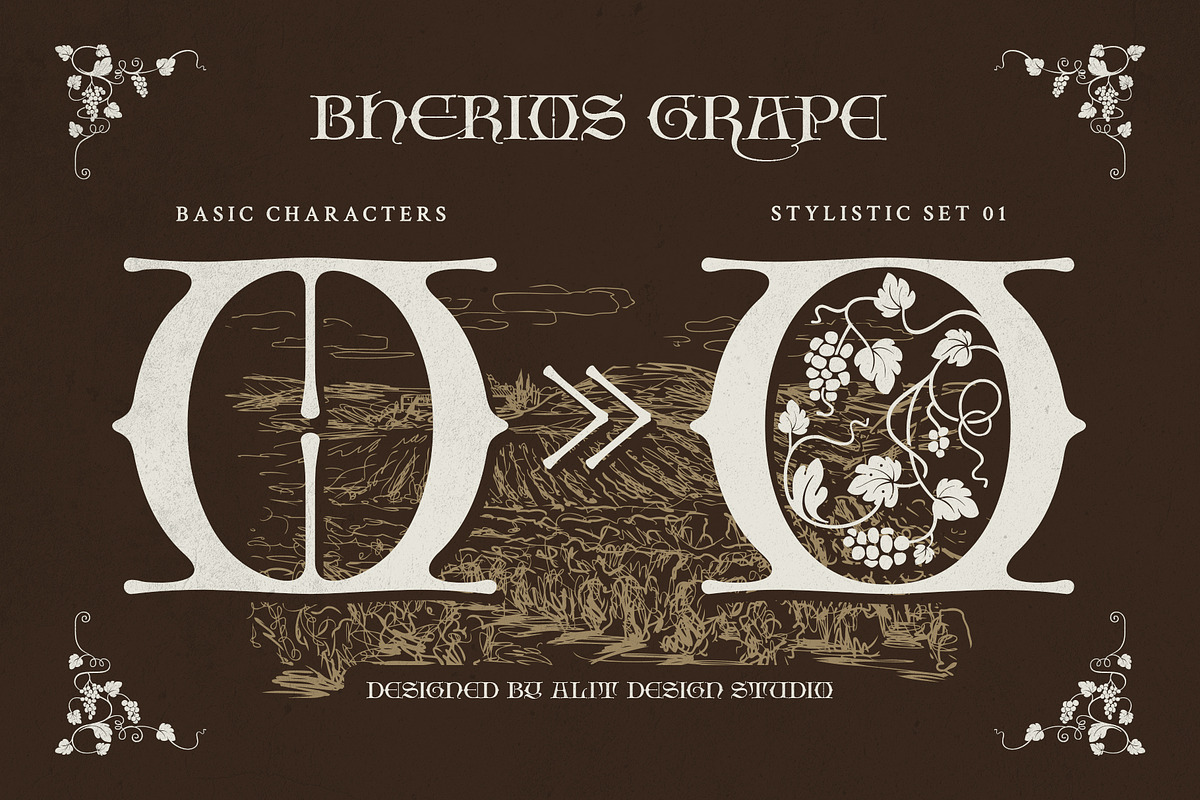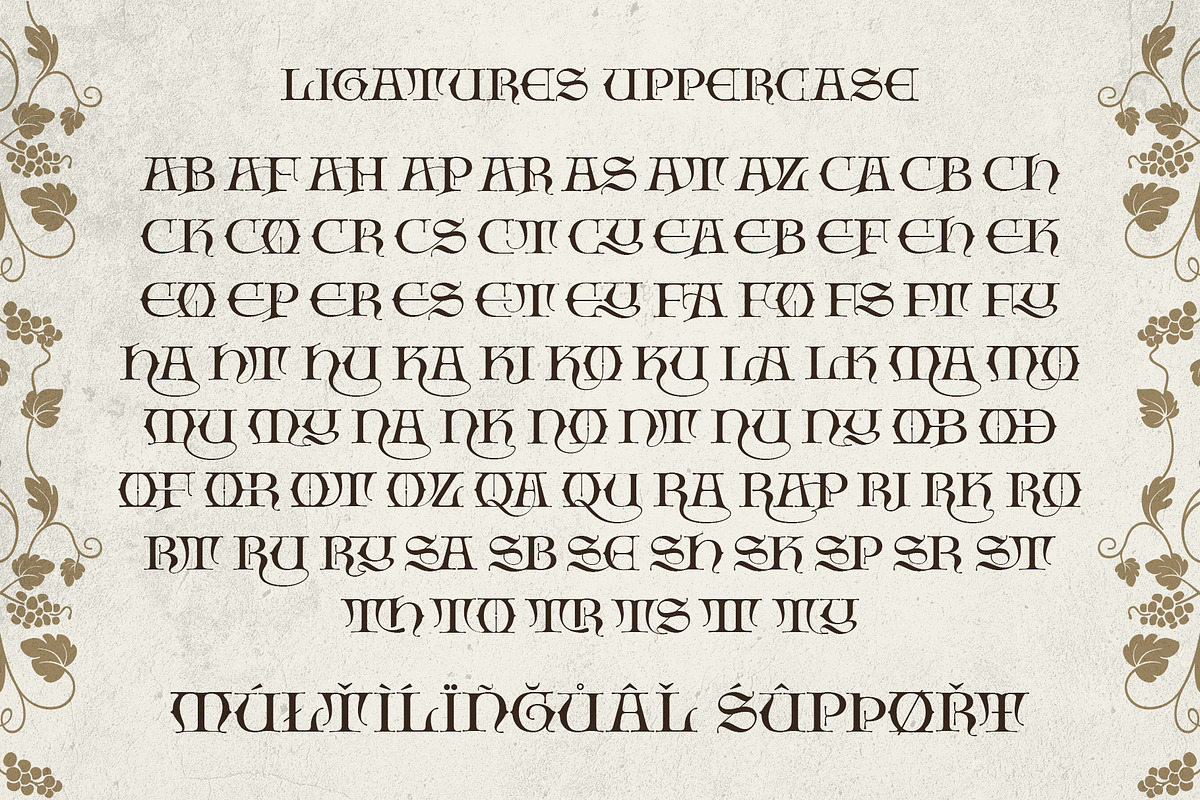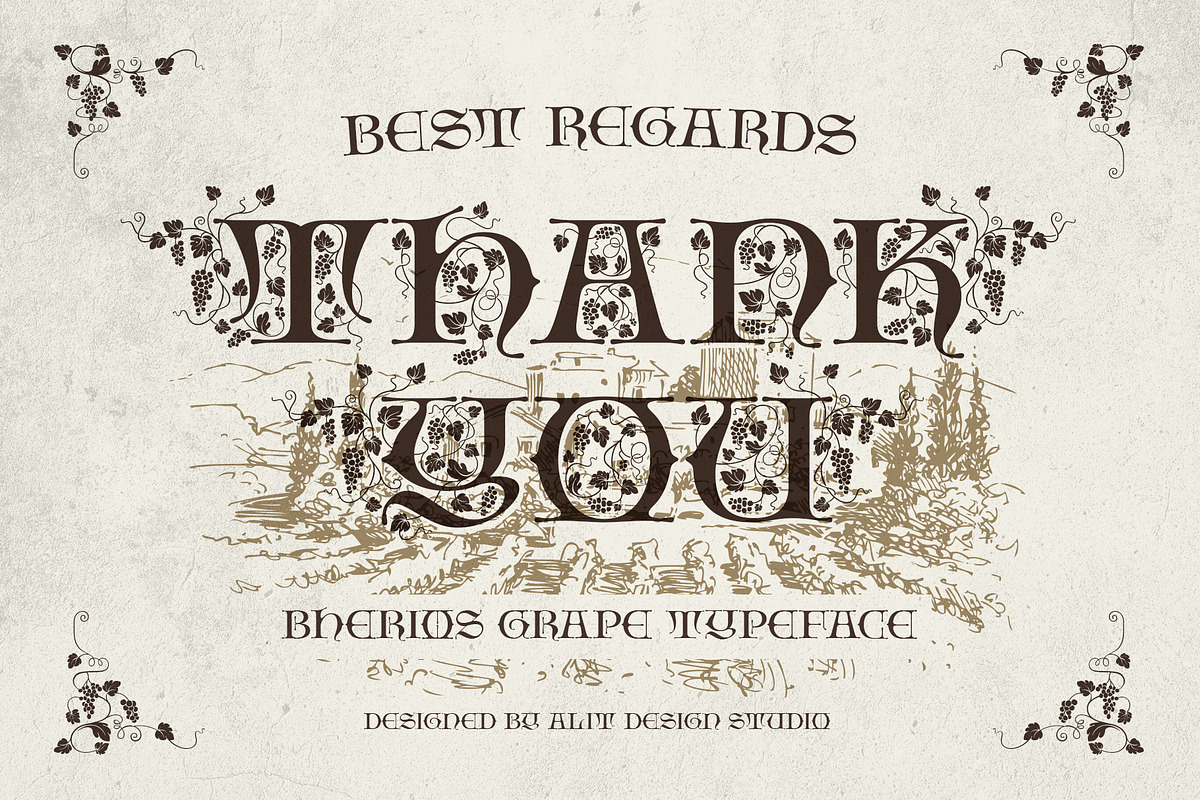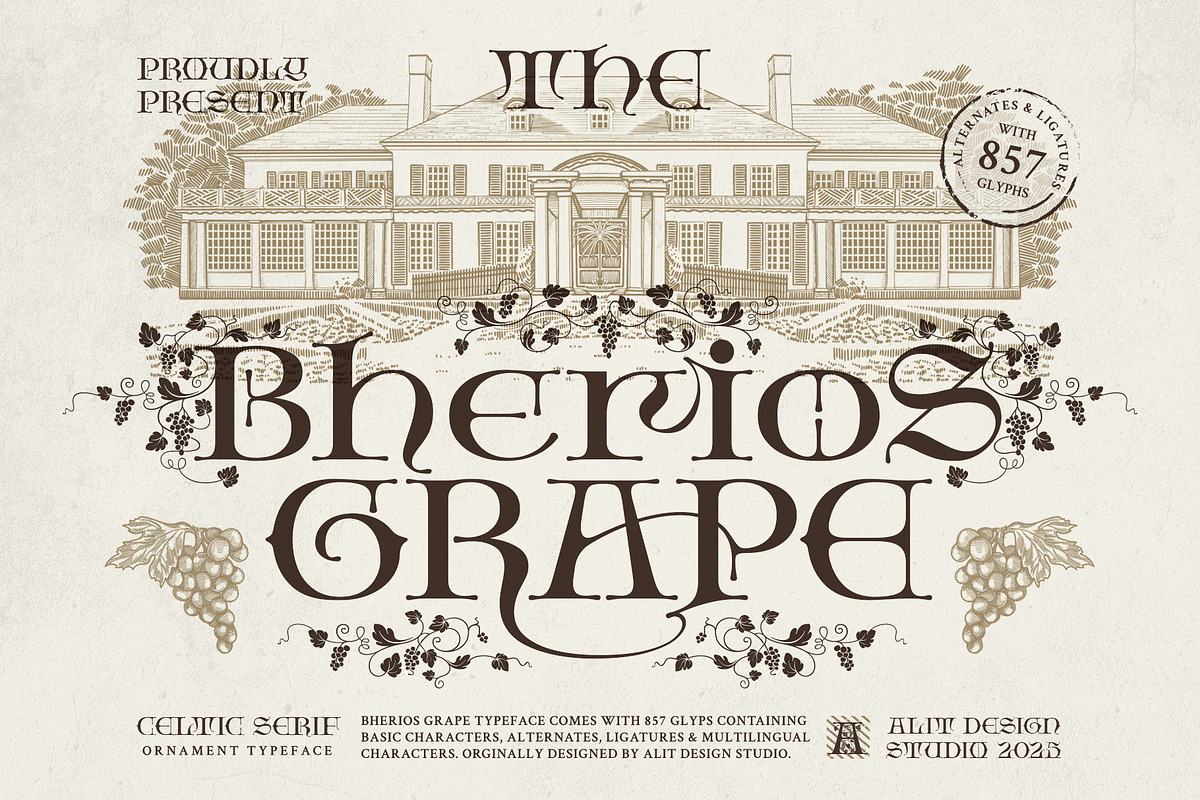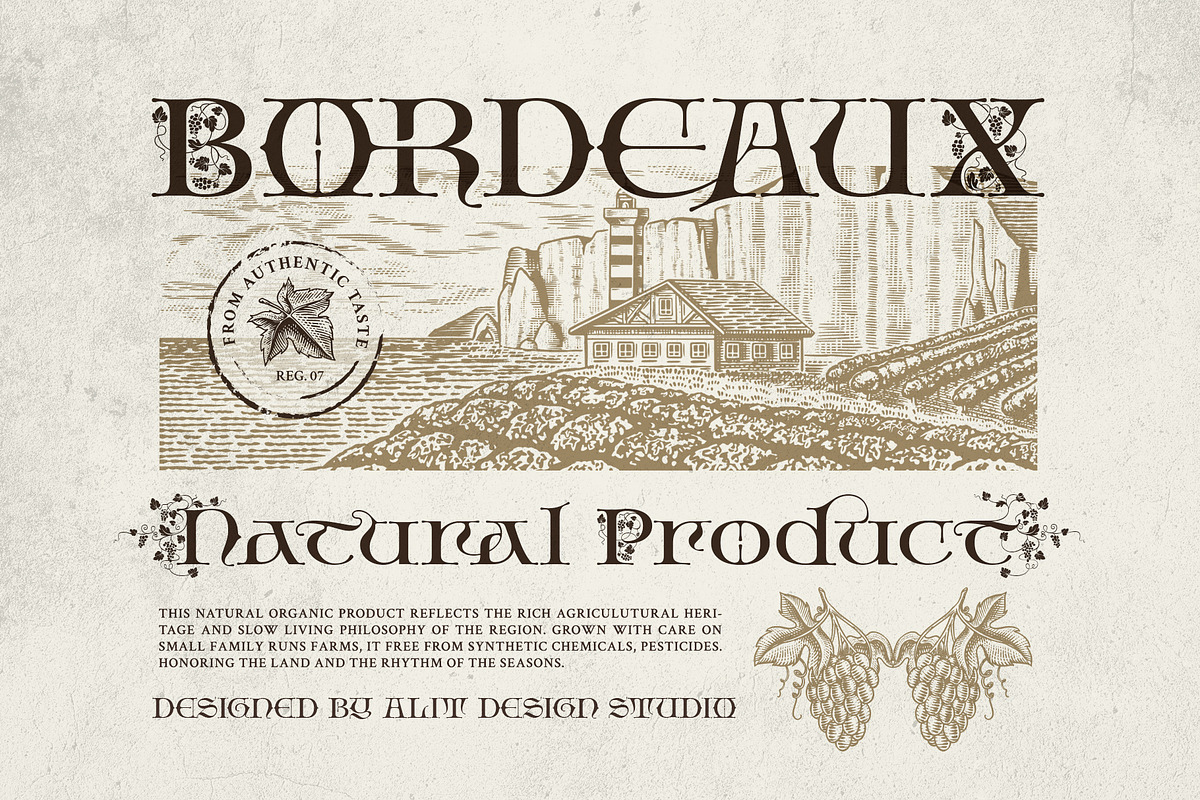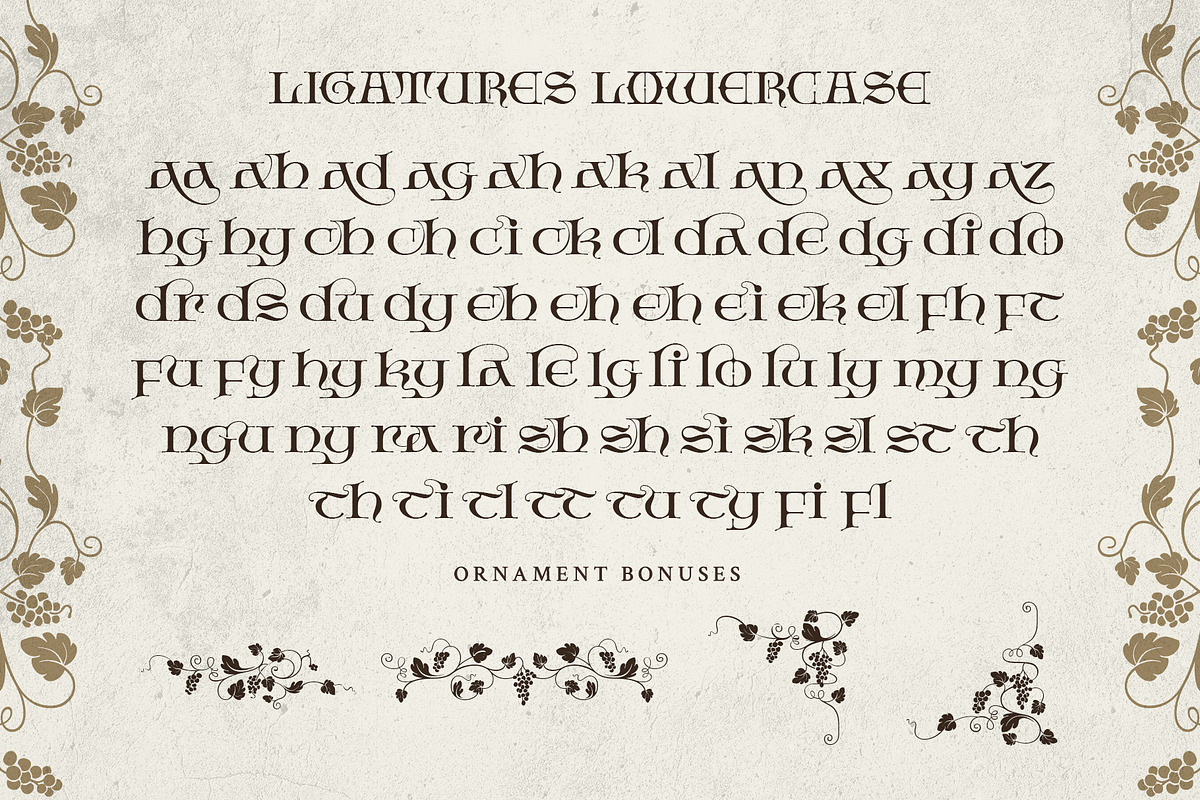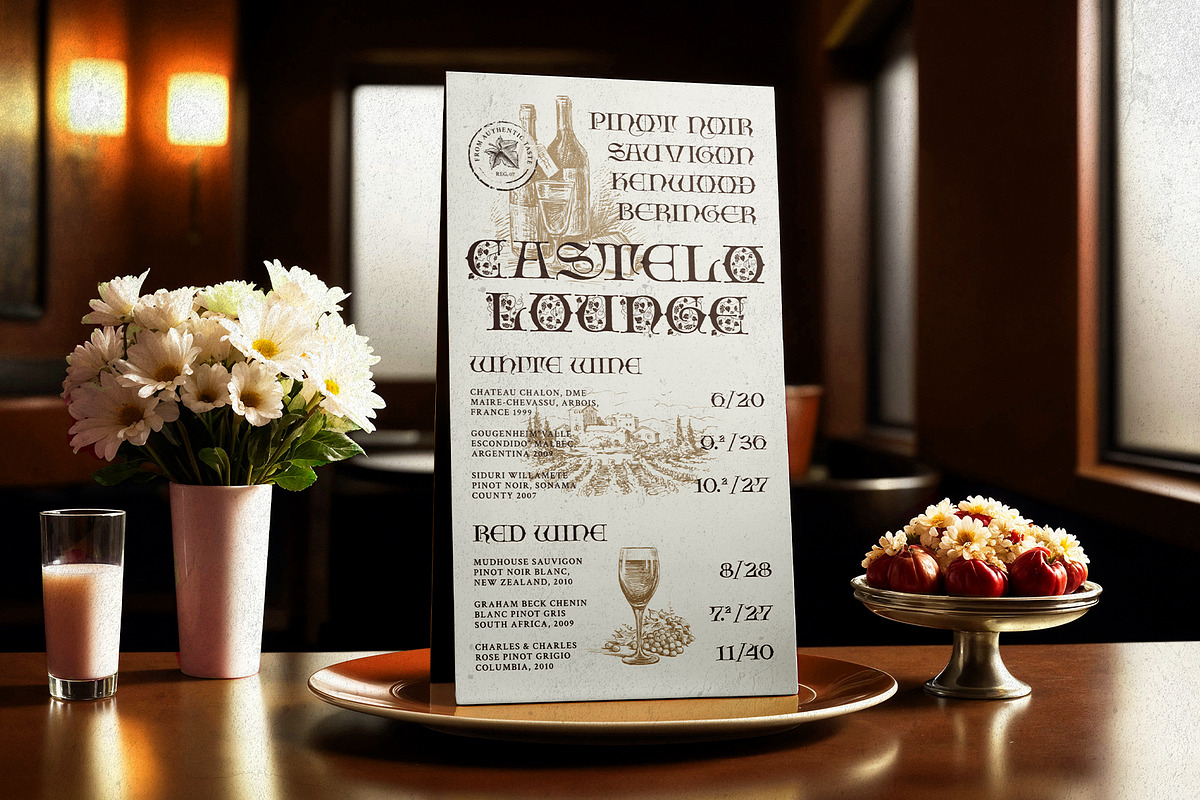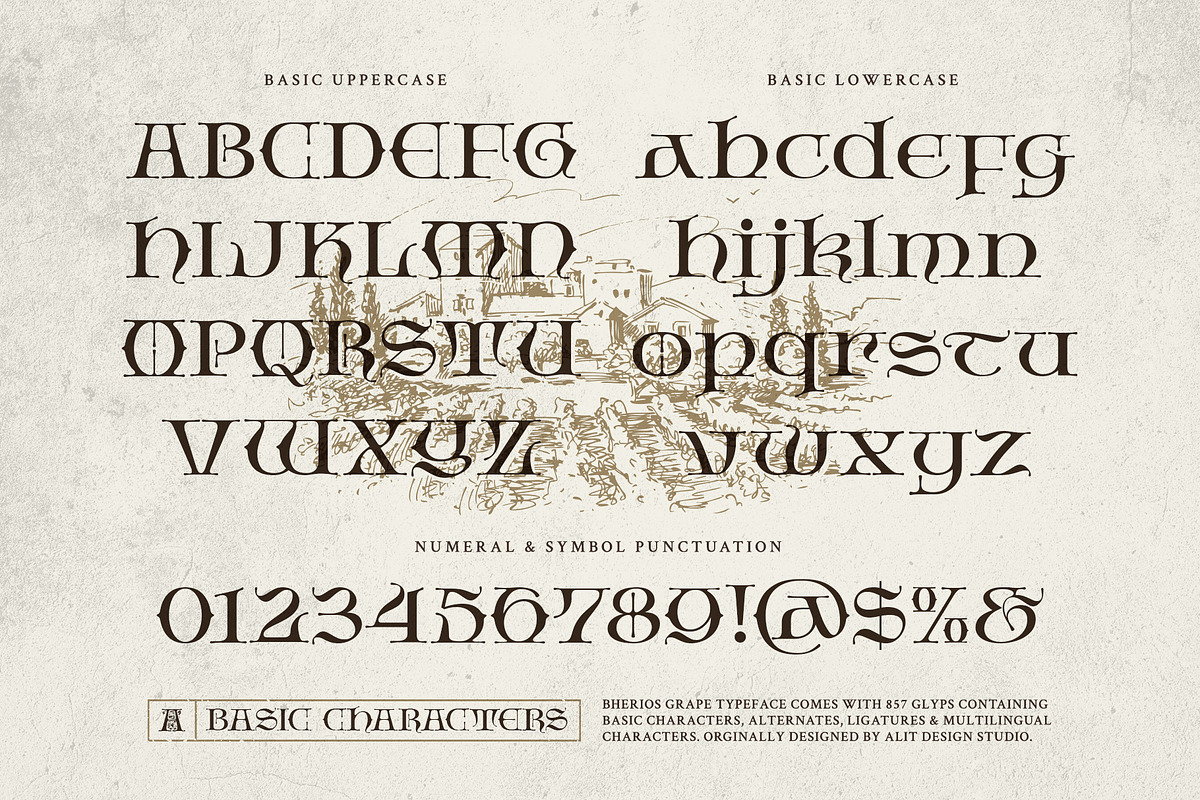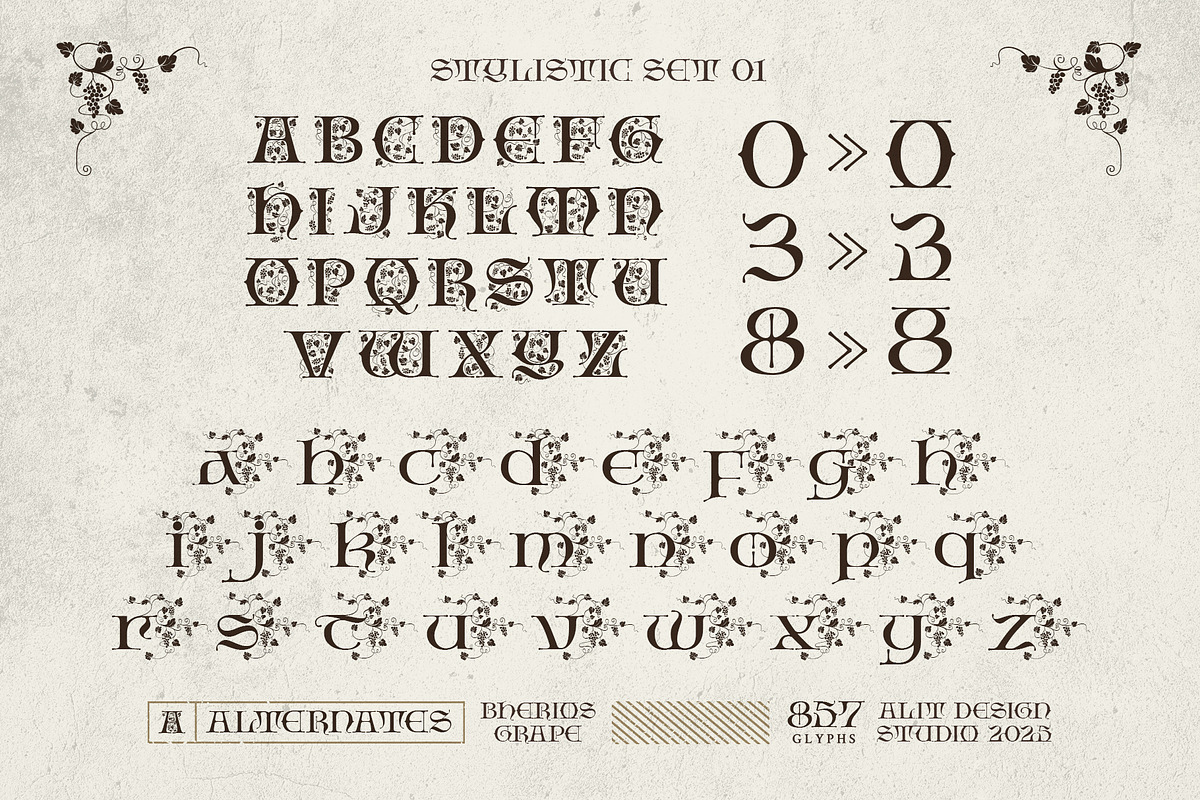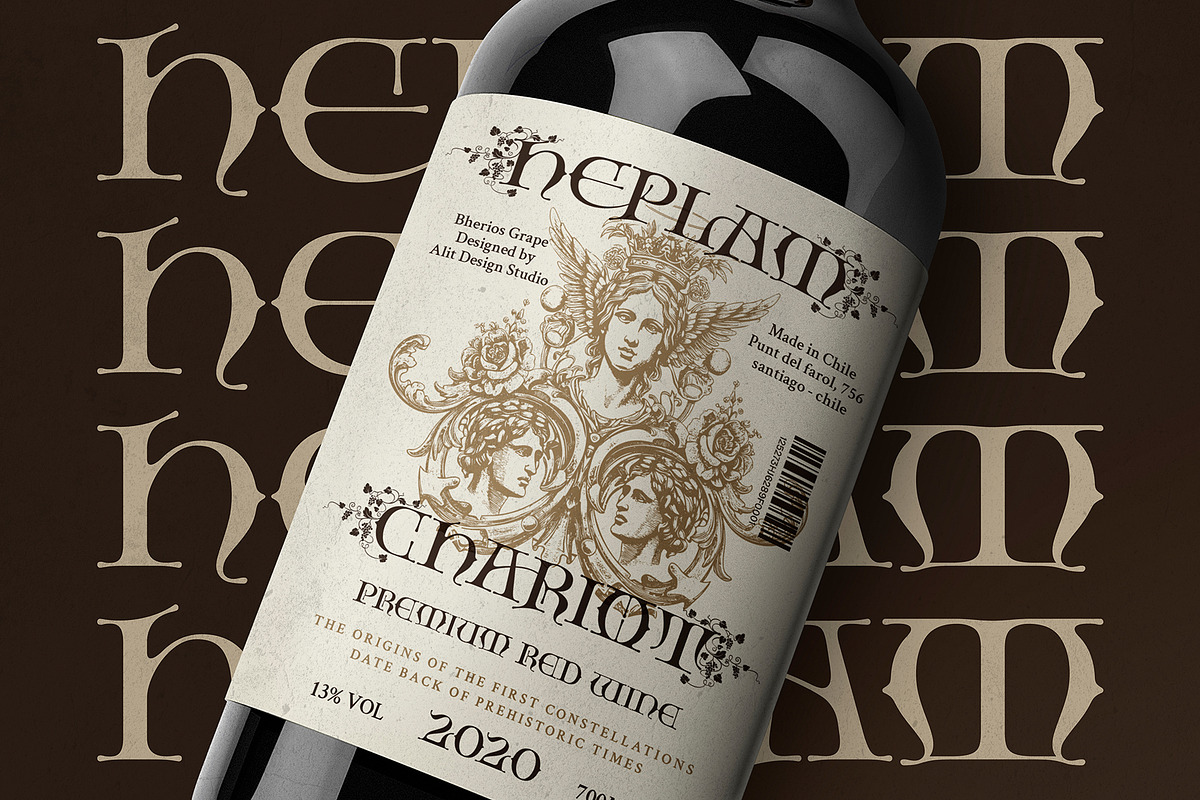
Bherios Grape Typeface
Step into a world of timeless elegance with Bherios Grape, a classic serif typeface that masterfully blends historical charm with intricate natural beauty. This font evokes the stately sophistication of a bygone era, drawing inspiration from early 20th-century European craftsmanship and vintage print, reminiscent of the detailed artistry seen around the World War I period.
The true soul of Bherios Grape lies in its breathtaking stylistic alternates. With the click of a button, you can transform standard letters into stunning illustrations, each character delicately interwoven with ornate grapevines, leaves, and fruit clusters. This unique feature allows you to effortlessly infuse your projects with a touch of organic, decorative flair.
With its strong, classic letterforms and artistic flourishes, Bherios Grape is perfectly suited for designs that require a statement of distinction and heritage. While rooted in a classic serif structure, its ornamental elegance can complement themes from Art Nouveau's natural forms to the sophisticated grandeur of Art Deco.
- A complete set of Basic Characters (Uppercase & Lowercase)
- Extensive Stylistic Alternates featuring beautiful grape and vine ornaments
- Standard & Discretionary Ligatures
- Includes a total of 857 glyphs to give you ultimate creative freedom.
- Luxury Wine & Beverage Labeling
- High-End Product Packaging
- Classic Wedding Invitations & Stationery
- Vintage Poster & Signage Design
- Book Covers & Editorial Headlines
- Branding for Restaurants, Hotels, and Wineries
- Any project that calls for a touch of vintage sophistication and natural elegance.
Embrace the artistry of the past and let Bherios Grape Typeface elevate your designs to a new level of classic beauty.